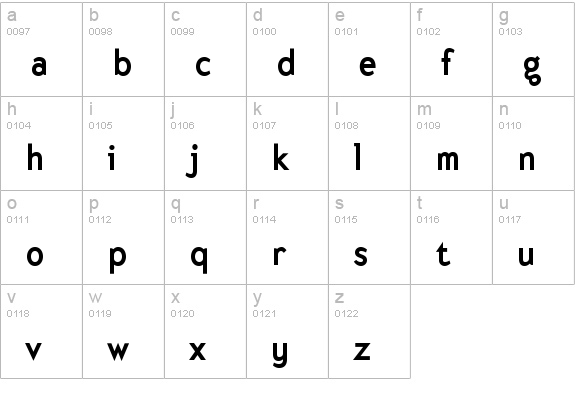
Mercury Bold is a strong, high-contrast variant in the Mercury typeface family \xE2\x80\x94 well suited to headlines, attention-grabbing titles, and strong calls-to-action.
Introducing Mercury Bold font, a bold and impactful typeface that exudes confidence and modernity. With its clean lines and sleek design, Mercury Bold is perfect for making a statement in any project. Whether you're designing a logo, poster, or website, this versatile font will add a touch of sophistication to your work. What's even more exciting is that Mercury Bold is available for free! You can easily download this premium font at FontsMarket.com and start using it in your projects right away. Don't miss out on the opportunity to elevate your designs with the stylish and dynamic Mercury Bold font. Download it today and unleash your creativity!